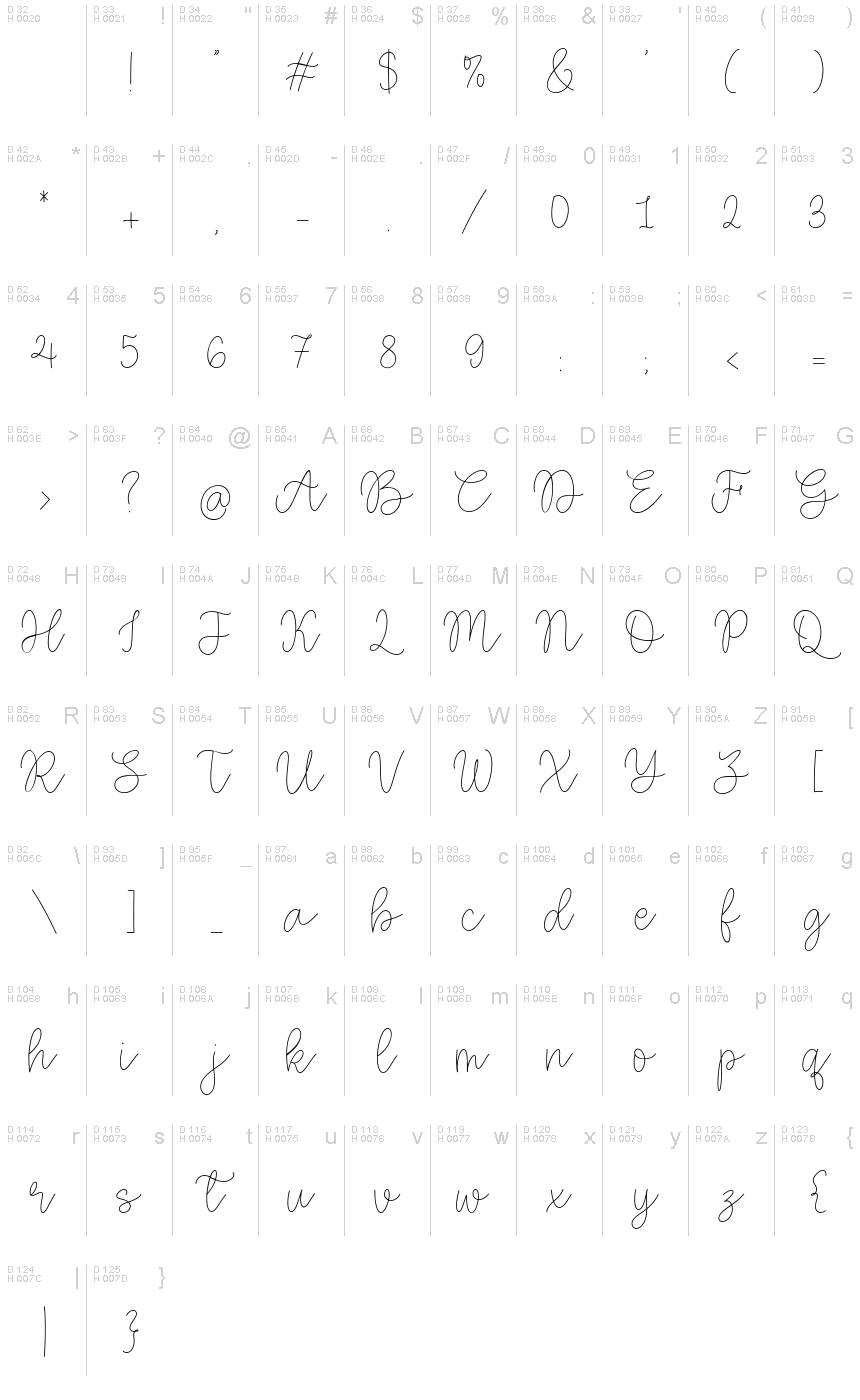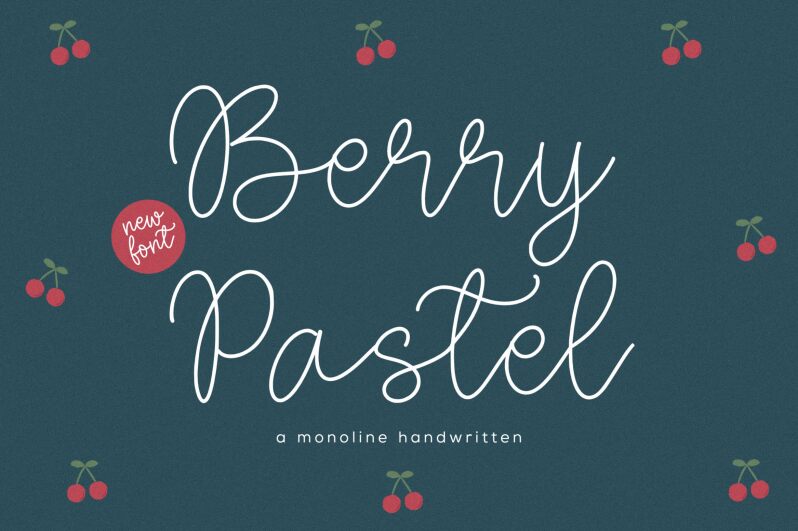
Berry Pastel
Berry Pastel font by Balpirick Studio is a handwritten, lightweight font that epitomizes elegance and whimsy. The letters are smoothly connected in a flowing script style adorned with an artistic flair. Light contrast across the letterforms makes up for an airy mood that’s delicate like few others. The free font has soft curves yet feminine and classy looking rushing users to test it in their personal work.
Taking inspiration from berry pastels, product packaging projects should be the first on the list of applications here. When you’re done with your cosmetic-related branding, switch to business cards, fashion booklets, fashion magazine covers, interior design patterns….